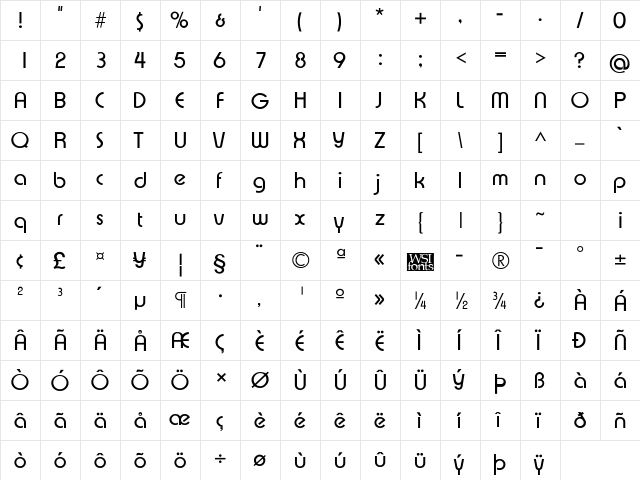
Xpressive Regular
Design Context for Xpressive Typeface
Xpressive takes a measured approach to typography — its balanced proportions and neutral character make it a reliable workhorse for both digital and print work.